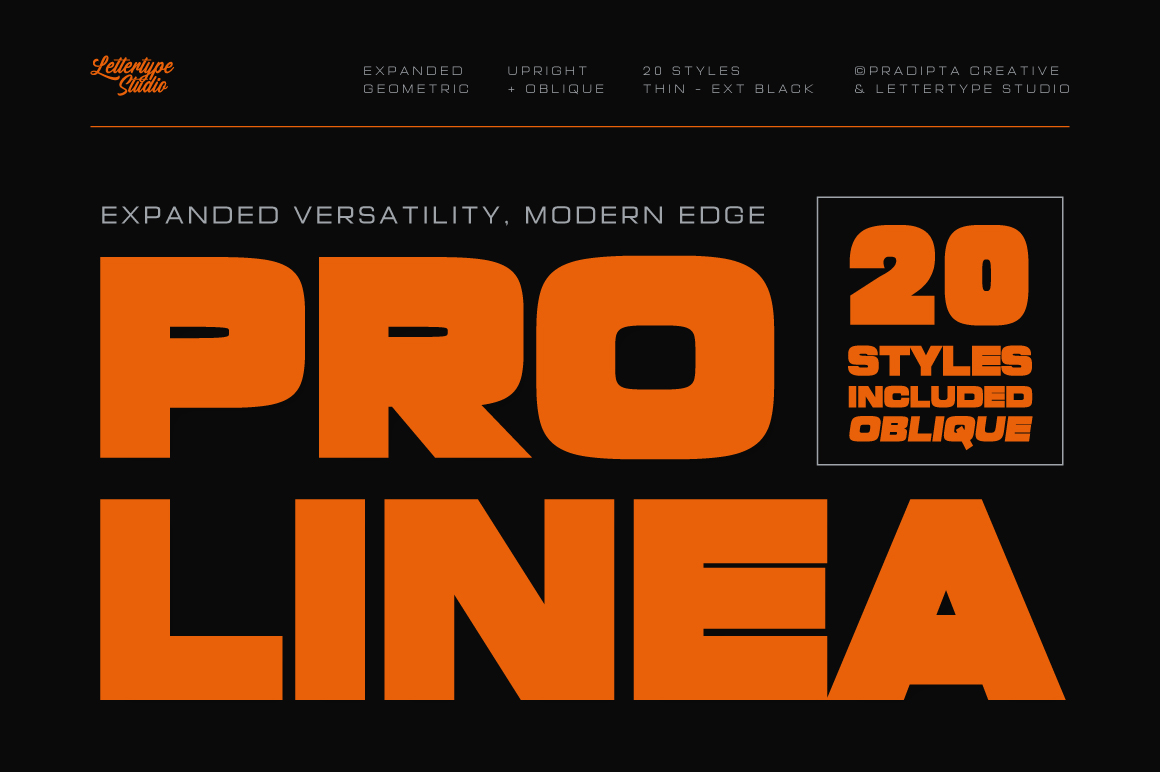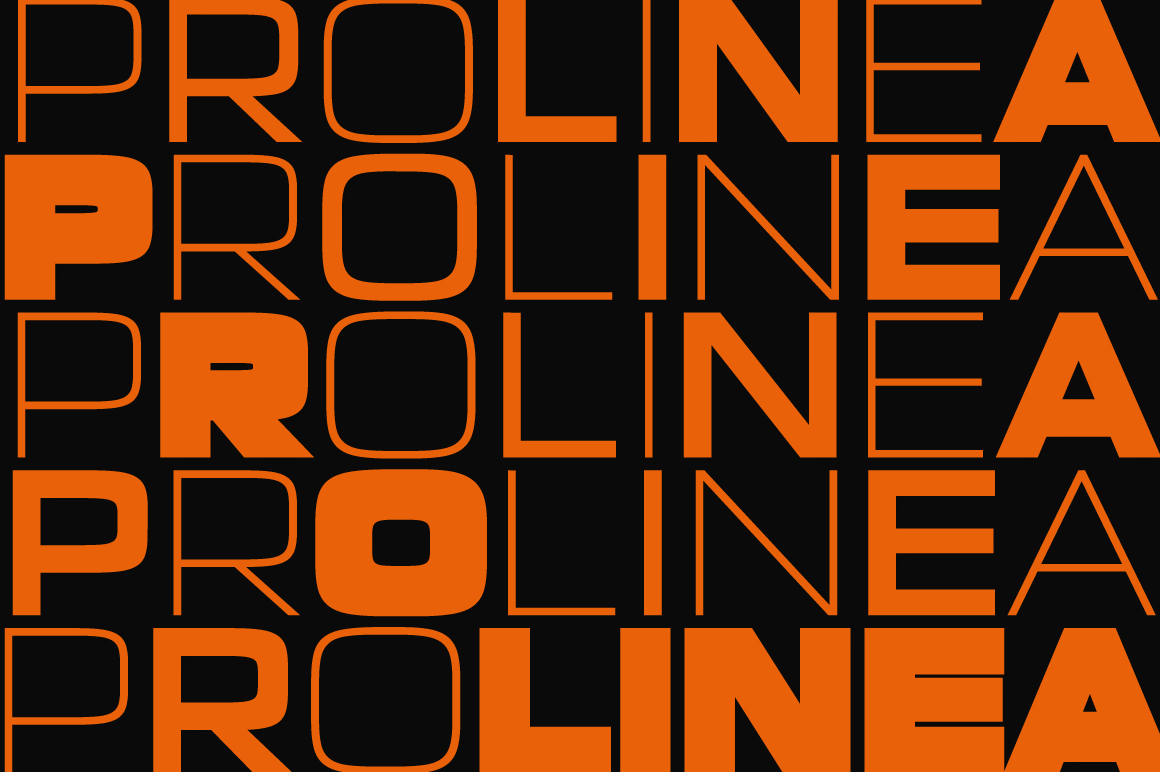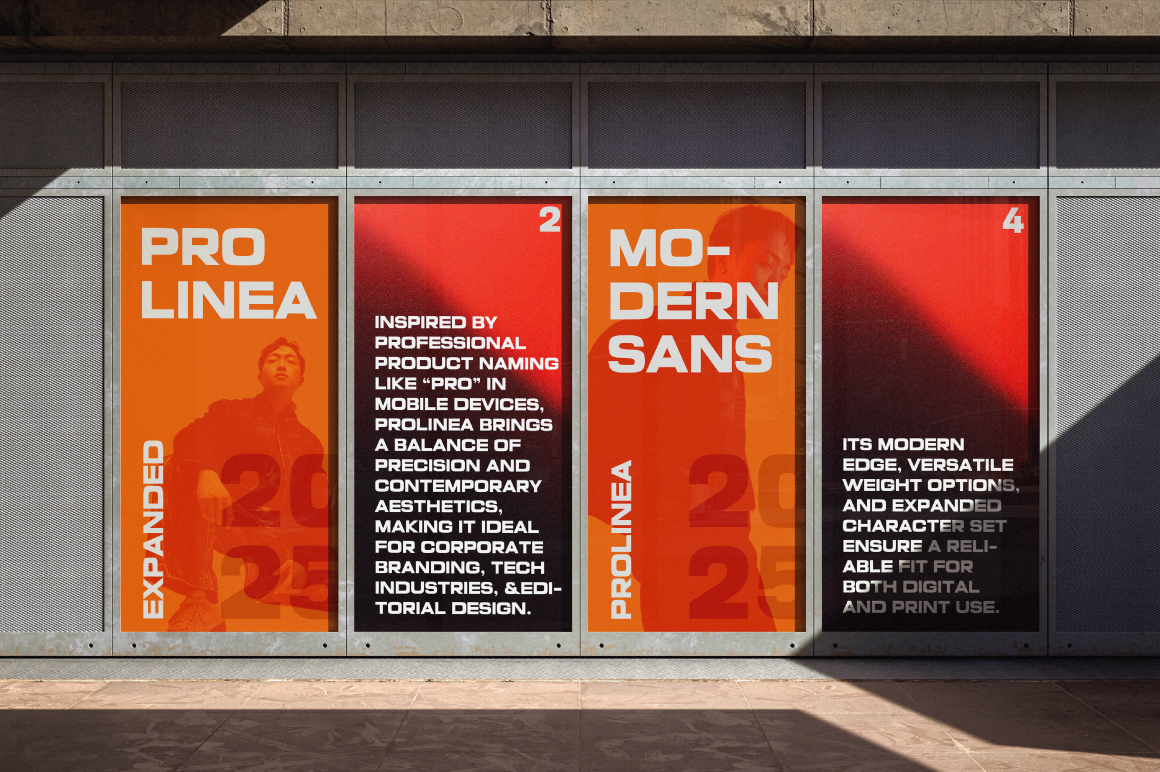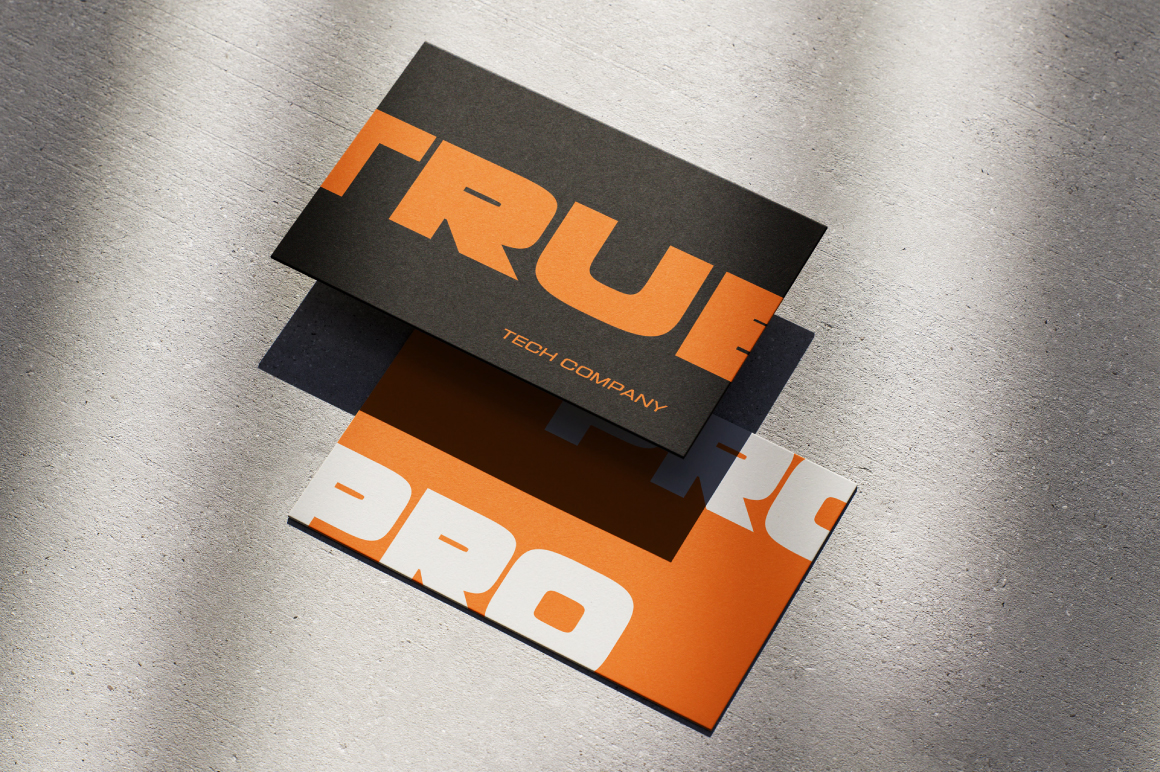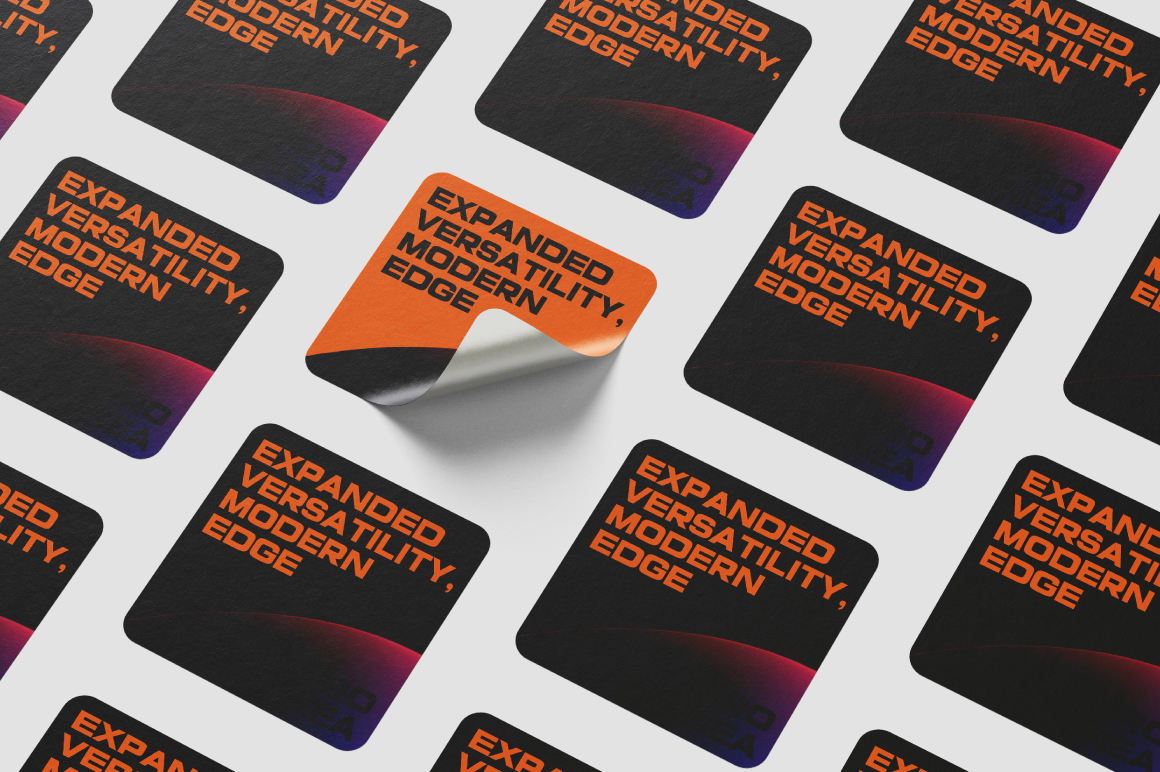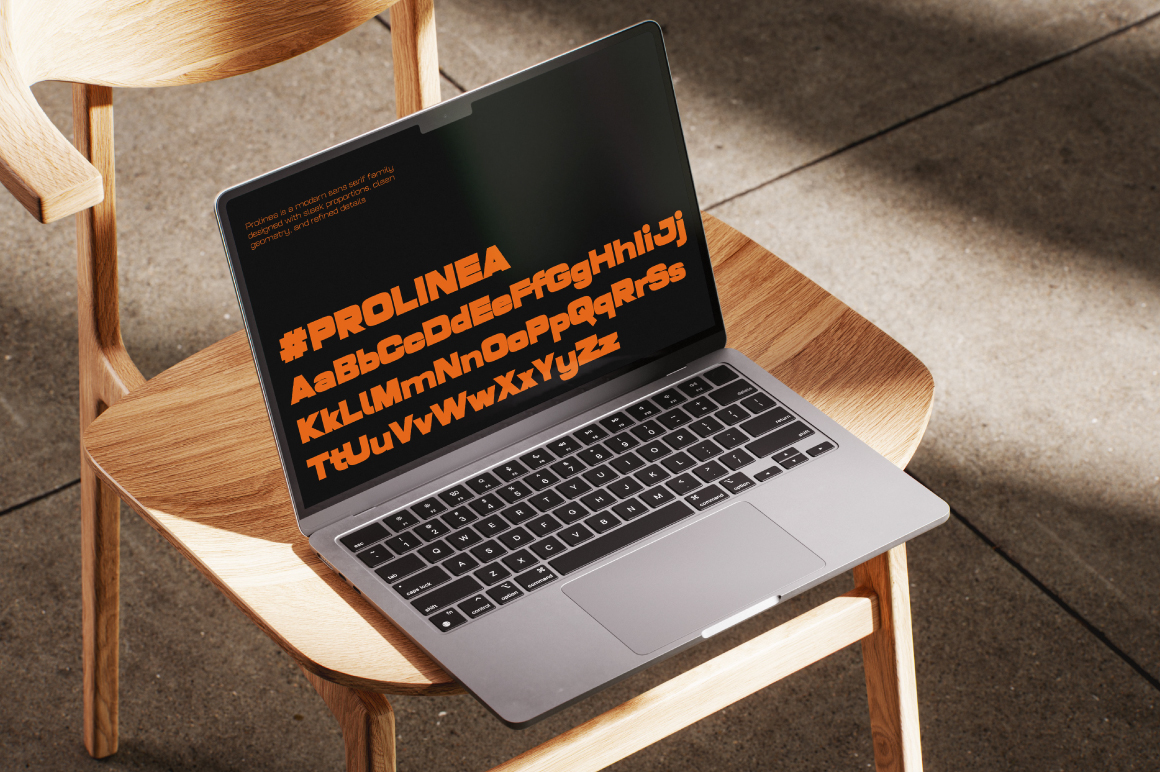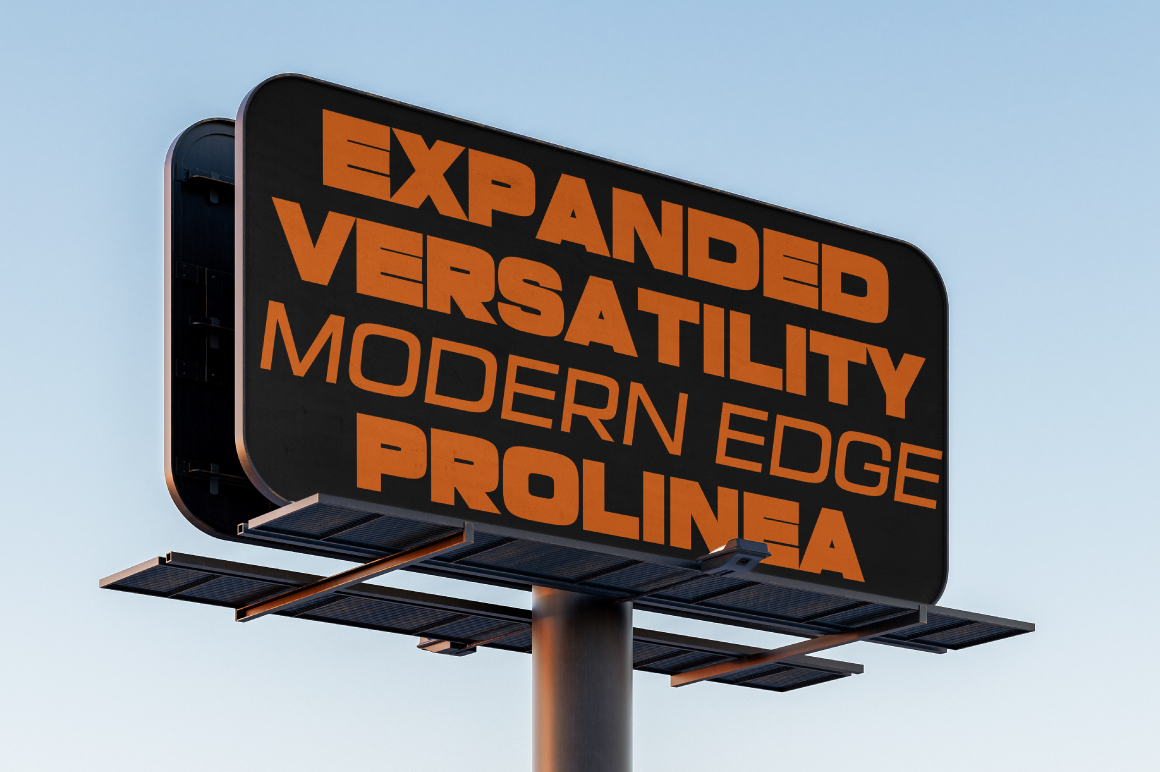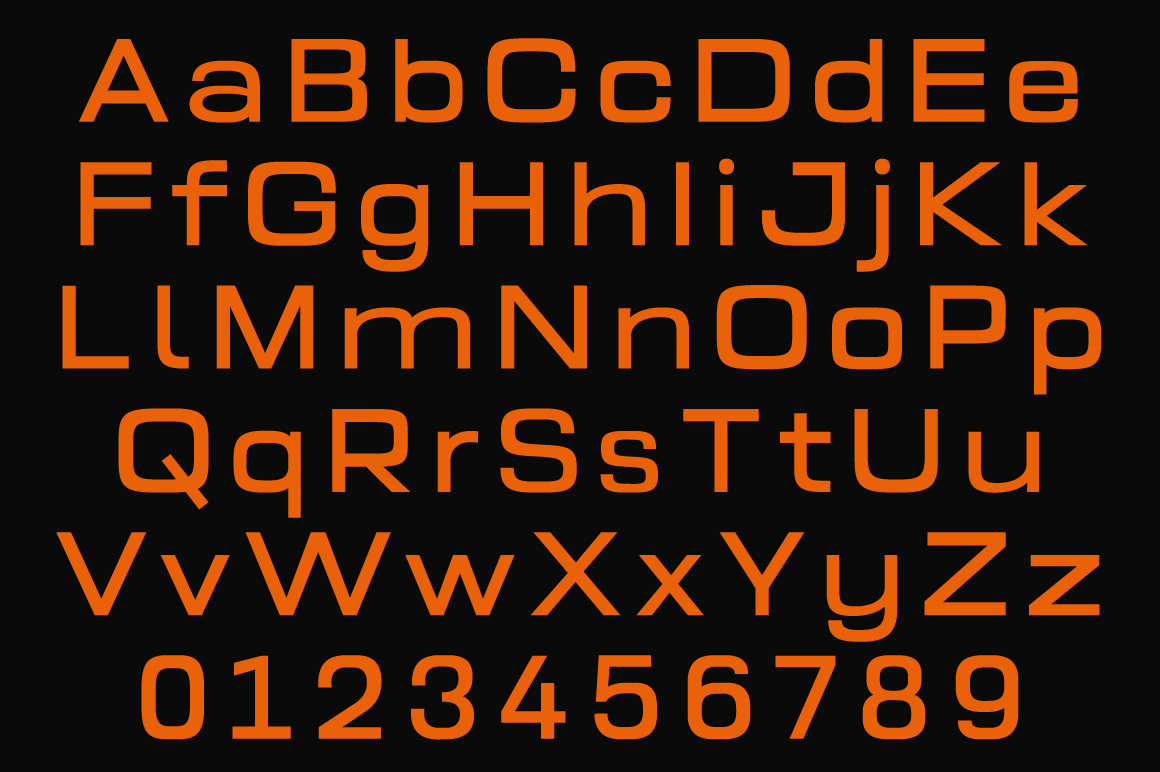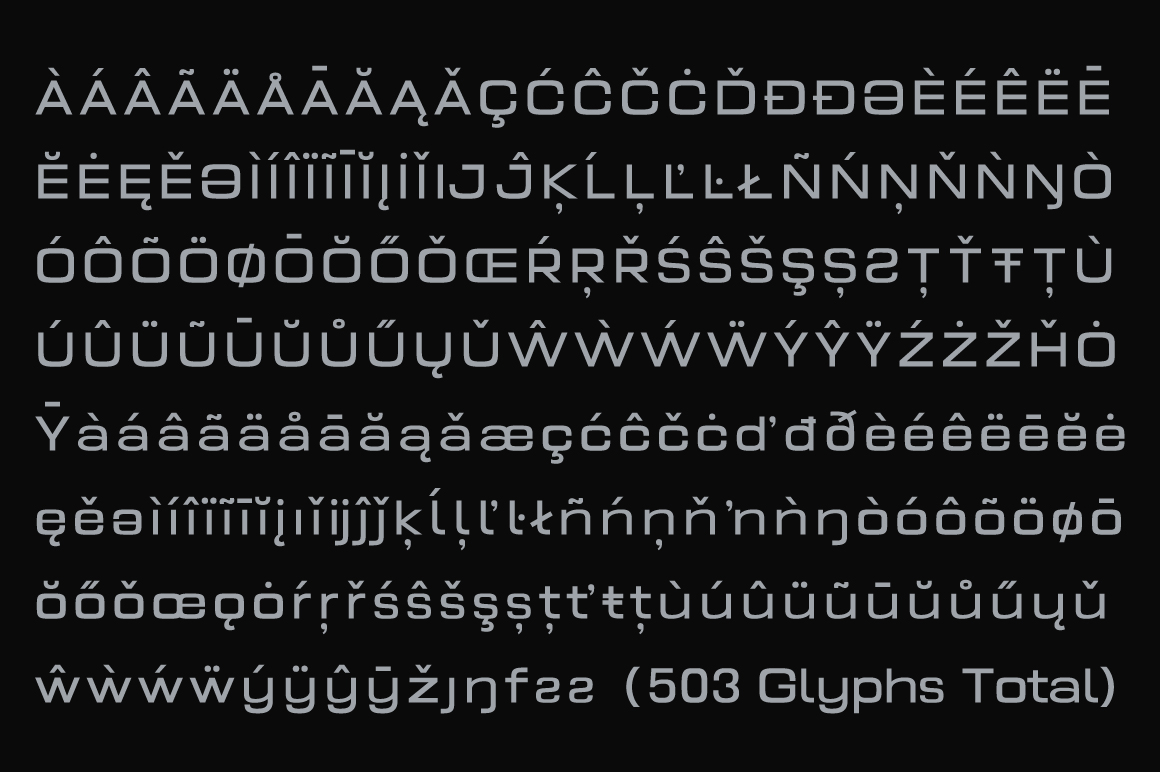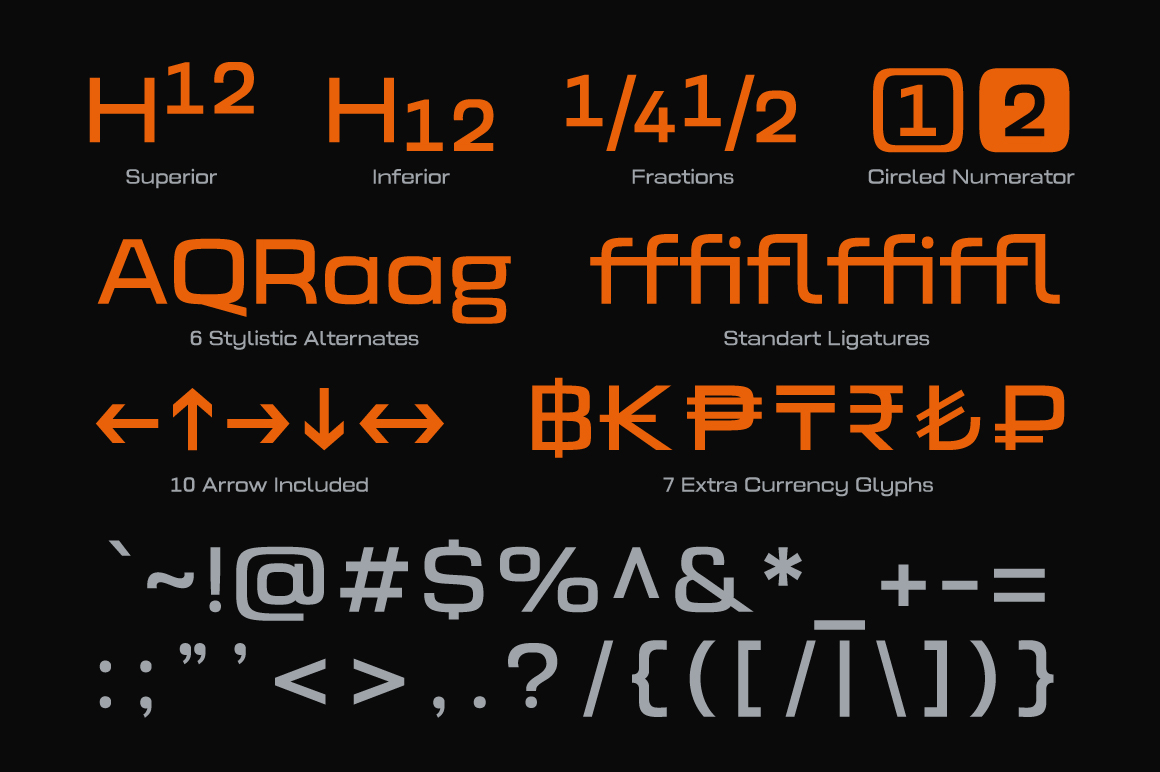
Prolinea is a modern sans serif family designed with sleek proportions, clean geometry, and refined details. Inspired by professional product naming like “Pro” in mobile devices, Prolinea brings a balance of precision and contemporary aesthetics, making it ideal for corporate branding, tech industries, and editorial design. Its modern edge, versatile weight options, and expanded character set ensure a reliable fit for both digital and print use.
Beyond its core design, Prolinea also features a set of thoughtful alternates and ligatures, giving designers creative freedom when building distinctive logotypes and expressive headlines. With smooth readability, expanded multilingual support, and carefully crafted details, Prolinea adapts seamlessly across media, elevating your projects with clarity, elegance, and timeless style.
Prolinea Features:
• 20 Styles + Variable
• Upright & Oblique
• Alternates: A, Q, R, a, a, g (ss01)
• Extra glyphs: circled numerals ①–⑩, arrows (← ↑ → ↓ ↔ ↕ ↖ ↗ ↘ ↙), currency (฿₭₱₸₹₺₽)
• 503 Glyphs Total
• 270+ Languages Support
• Modern corporate and tech branding
• Editorial layouts and startup presentations
• UI/UX, website headers, and digital interfaces
• Bold logo, display, and advertising design
• Packaging and marketing visuals with a futuristic edge